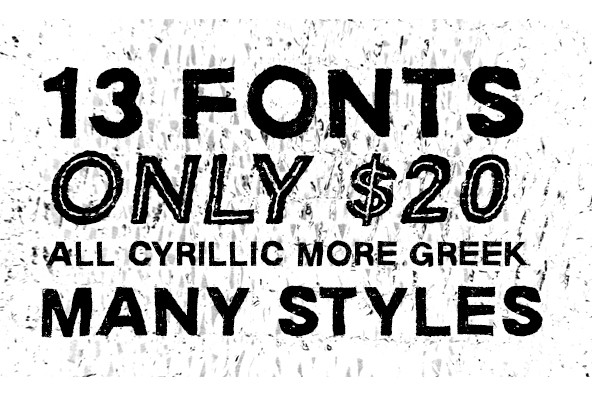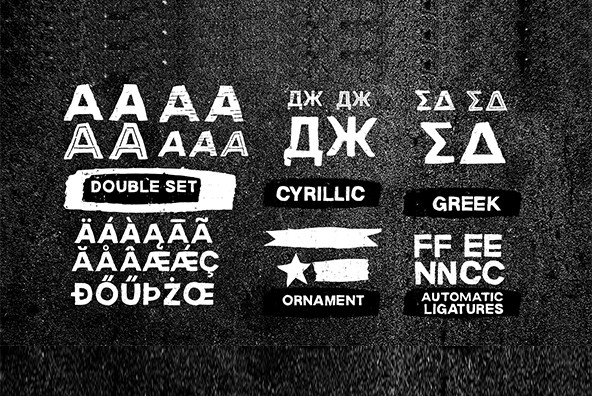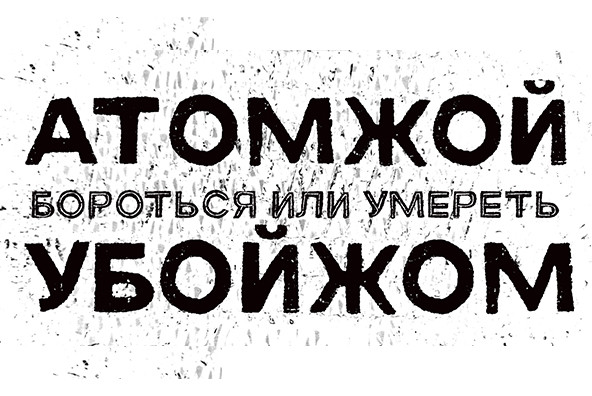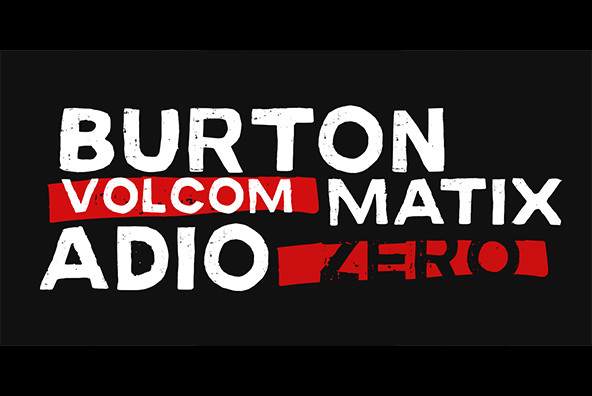
Macabro Family Font
MACABRO
MACABRO DINGBAT
MACABRO ITALIC
MACABRO OUTLINE
MACABRO OUTLINE ITALIC
MACABRO OUTLINE ROUGH
MACABRO OUTLINE ROUGH ITALIC
MACABRO ROUGH
MACABRO ROUGH ITALIC
MACABRO ROUGH STYLE
MACABRO STYLE
MACABRO STYLE ITALIC
Macabro Family is a grunge typography, handmade whose concept, fear terror phobia among others, Cyrillic and Greek are also design also has several varieties, from italic, outline, rough, etc. .. dingbat